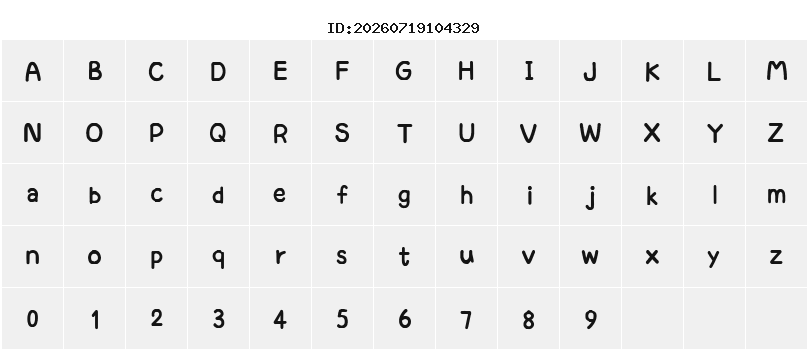
YEFONTFitFitDaTi 標準 Preview
• Font Name: YEFONTFitFitDaTi 標準
• Manufacturer: 也字工厂
About YEFONTFitFitDaTi 標準.TTF
YEFONTFitFitDaTi 標準.TTF is a modern, elegant sans-serif font designed for ultimate readability and visual harmony. Perfect for branding, headlines, web design, and print materials.